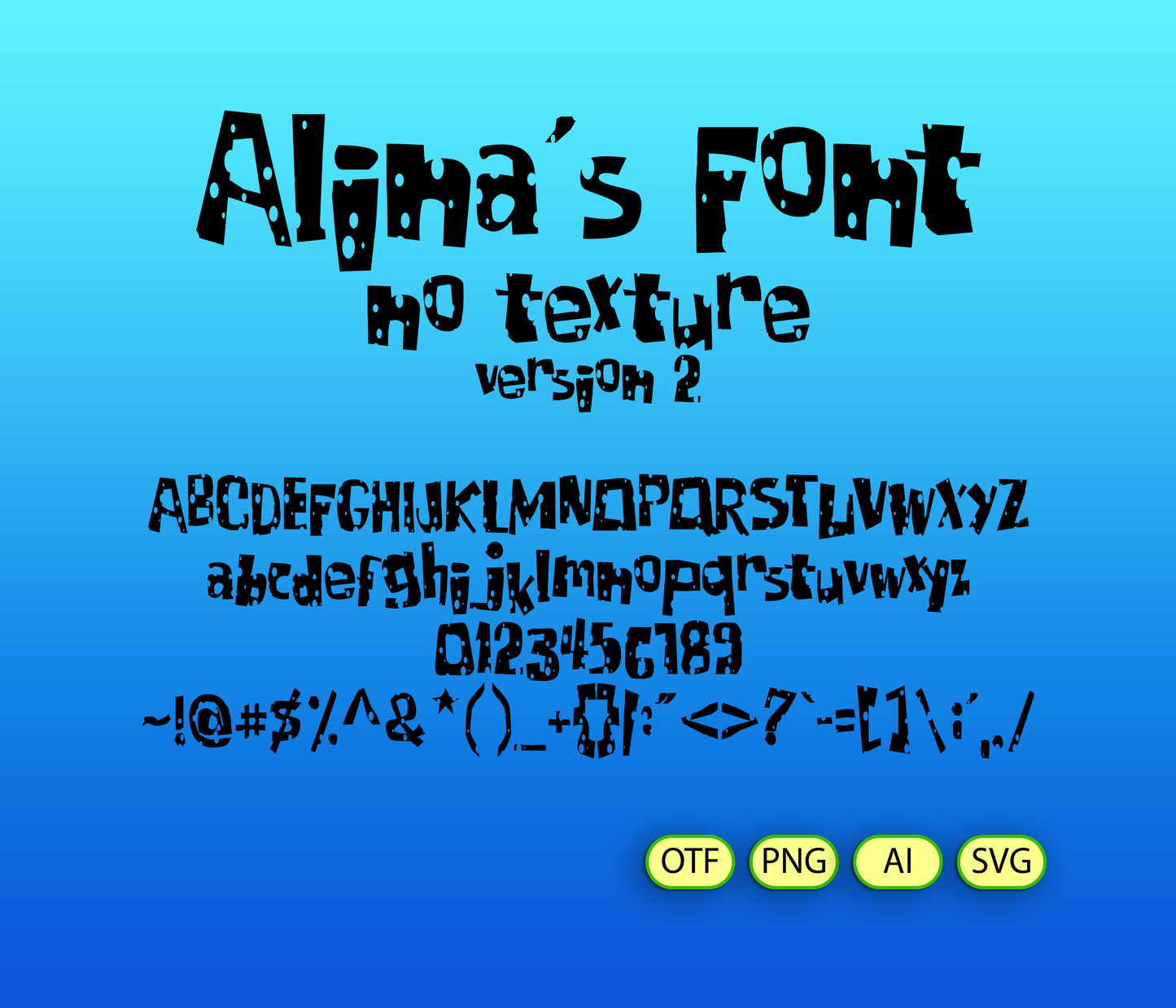
Seaside Neighborhood Font
Seaside Neighborhood Cheerful Maritime Style
Plunge into the delightful world of coastal community fun and maritime friendship with our Seaside Neighborhood Cheerful Maritime font, embodying the essence of nautical neighborhood hijinks and wholesome sea adventures. Perfect for maritime comedy creators, coastal community designers, nautical humor storytellers, and creative professionals, this font delivers the joyfully innocent yet wonderfully zany, splashingly upbeat atmosphere of seaside community tales to your projects. Craft delightfully nautical invitations, maritime humor merchandise, or digital content with the gleefully enthusiastic, coastally spirited energy of underwater community stories.
Our Seaside Neighborhood Cheerful Maritime font features rounded, sea-inspired letterforms and cheerfully nautical characters reflecting the delightfully wholesome yet amusing aesthetic of coastal community scenarios. Ideal for: